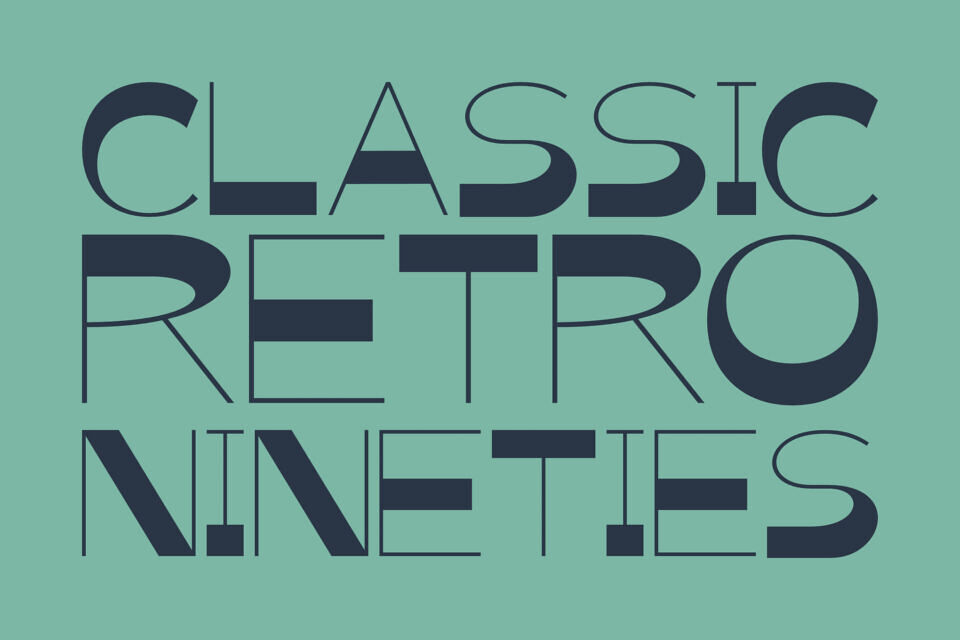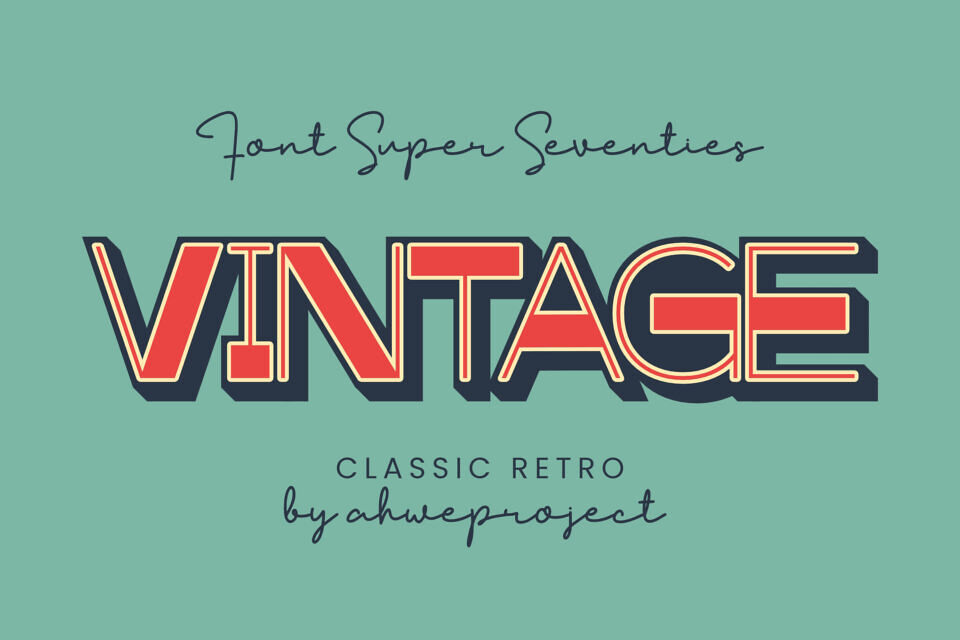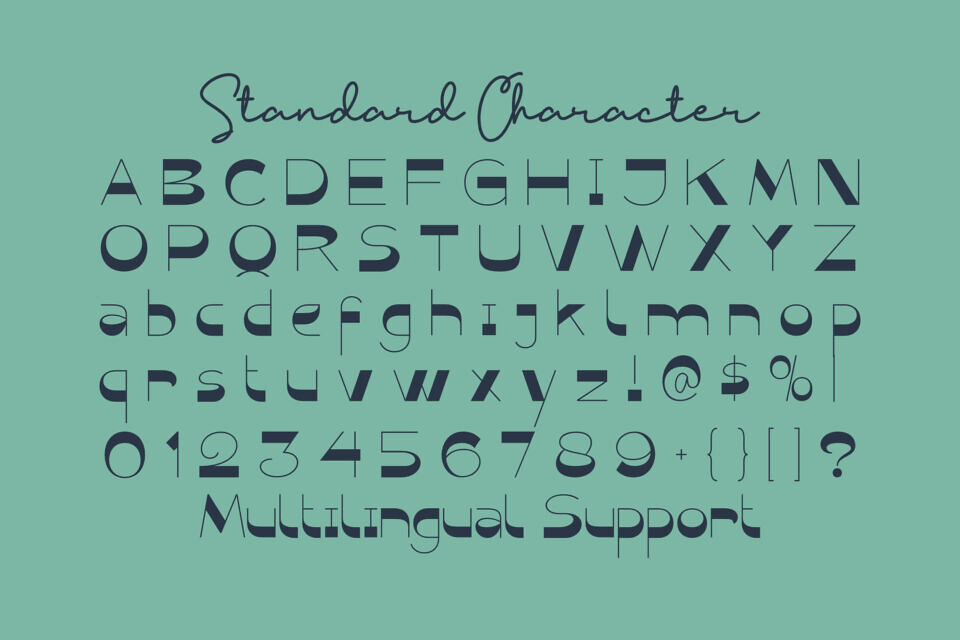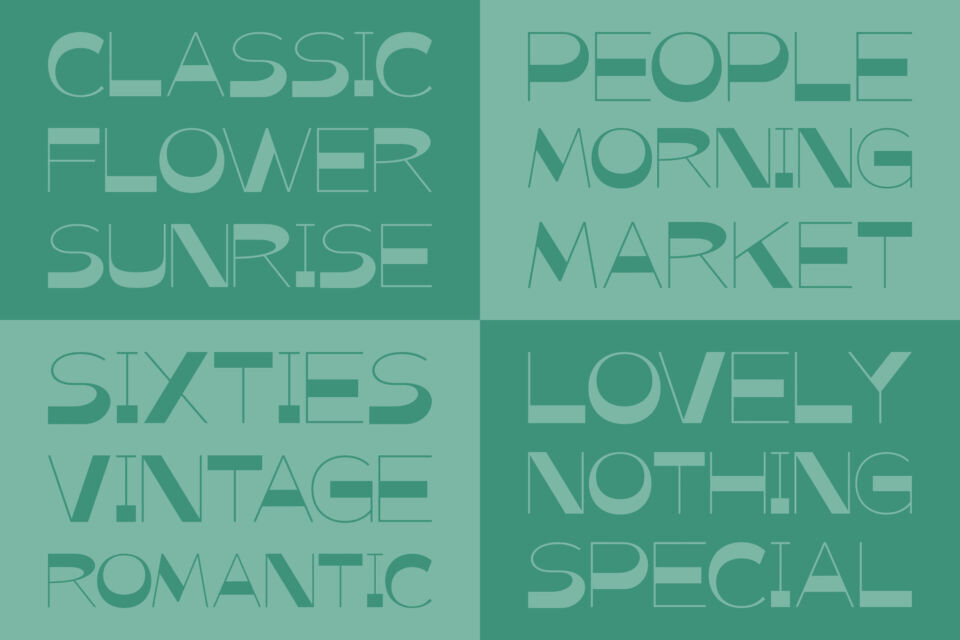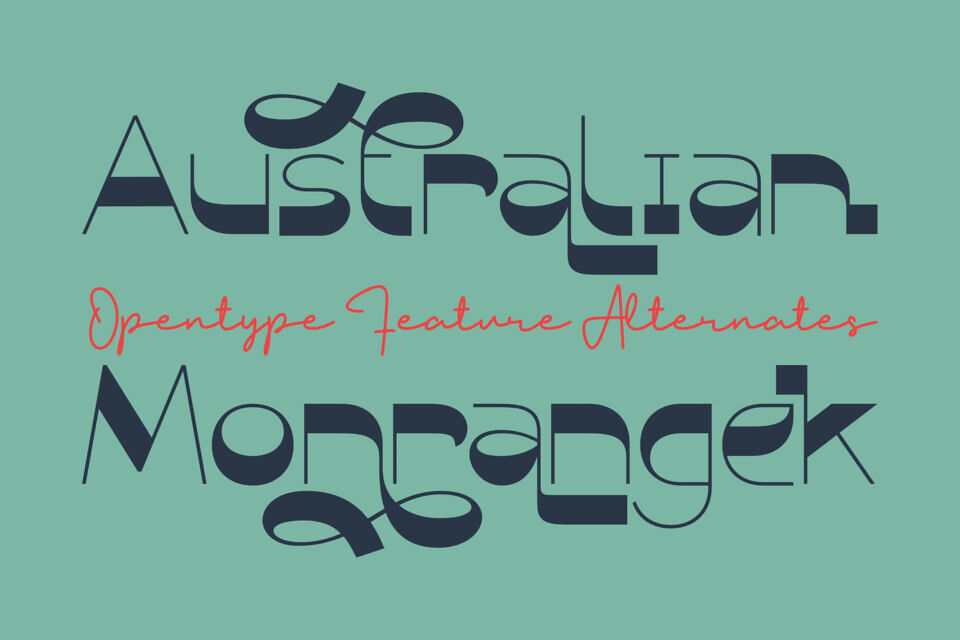
Exuding a vintage charm, Super Seventies encapsulates exquisite typographic coherence, ideal for an array of artistic ventures. From crafting distinctive logos and captivating brand identities to designing engaging social media content, eye-catching advertisements, and unique product designs, this font serves as a versatile tool for designers.
Its aesthetic appeal lies in the striking balance between old-school vibe and modern usability, making Super Seventies an essential addition to your design toolkit.